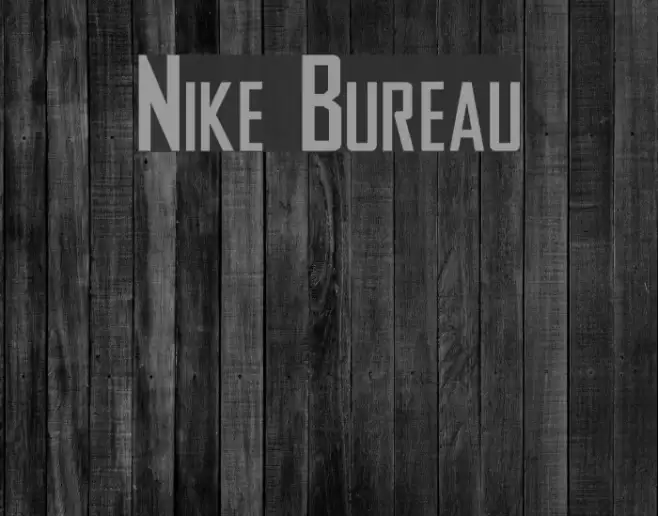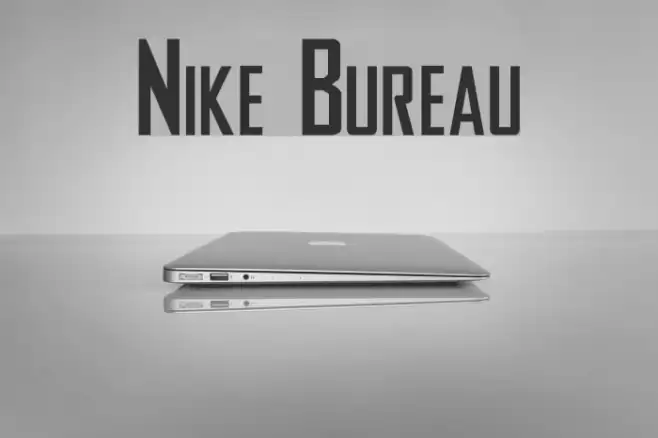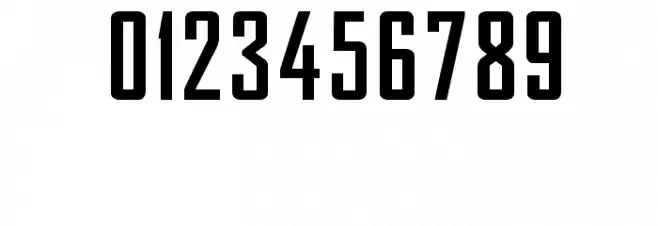
Nike Bureau Font
Nike Bureau Description
This font features a bold and assertive design, characterized by its tall, narrow letterforms and strong geometric shapes. The uppercase letters exhibit a uniform height with sharp, clean lines, while the lowercase letters maintain a consistent style that complements the uppercase. The numerals are distinct and easily readable, following the same bold and structured aesthetic. This font's design is modern and impactful, making it suitable for attention-grabbing headlines and branding. Its high contrast and tight character spacing enhance its bold appearance, ensuring visibility and clarity.
A bold, modern font with tall, narrow letterforms and strong geometric shapes from Uncategorized fonts.
- Character Spacing: Tight